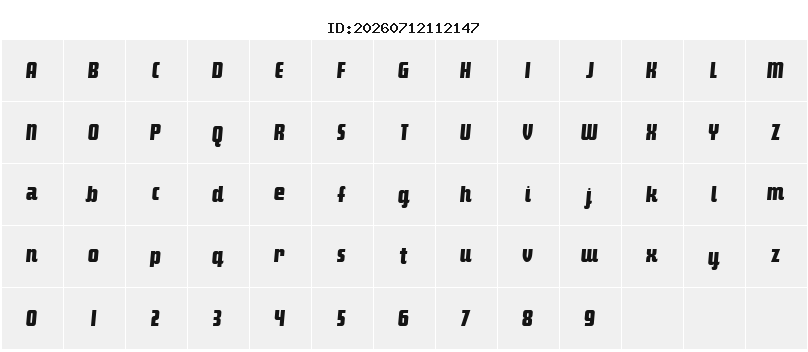
Makimango Preview
• Font Name: Makimango
• Font Style: Oblique
• Full Font Name: Makimango Oblique
About Makimango.ttf
Makimango.ttf is a modern, elegant sans-serif font designed for ultimate readability and visual harmony. Perfect for branding, headlines, web design, and print materials.